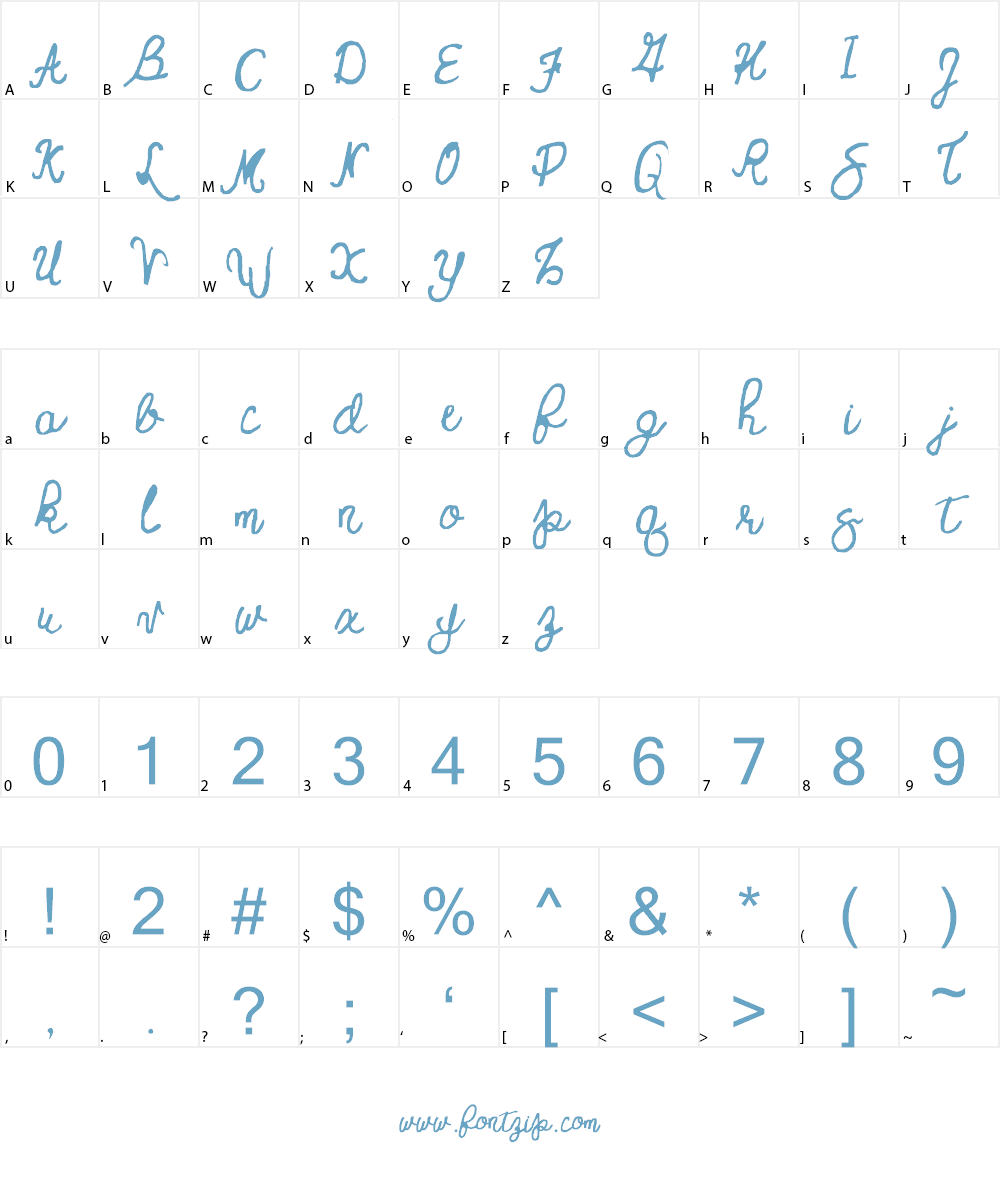
Woozy Wobble has characters that are of differing sizes and varying placement on the line. It makes a great font for Titles and is a fun font for all kinds of script uses.